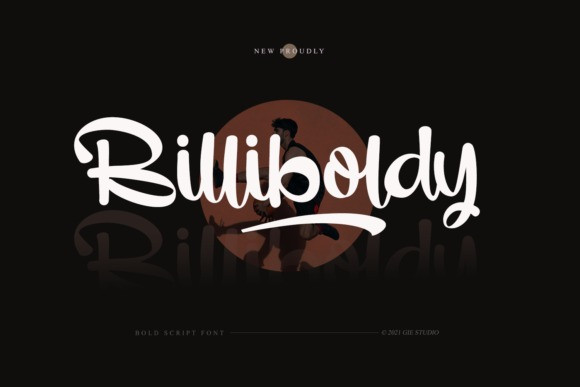
Billiboldy Font
Billiboldy is an elegant script font. Not too thin and not too thick, balanced and varied, this font was designed to enhance the beauty of your projects.
Billiboldy is PUA encoded which means you can access all of the glyphs and swashes with ease!